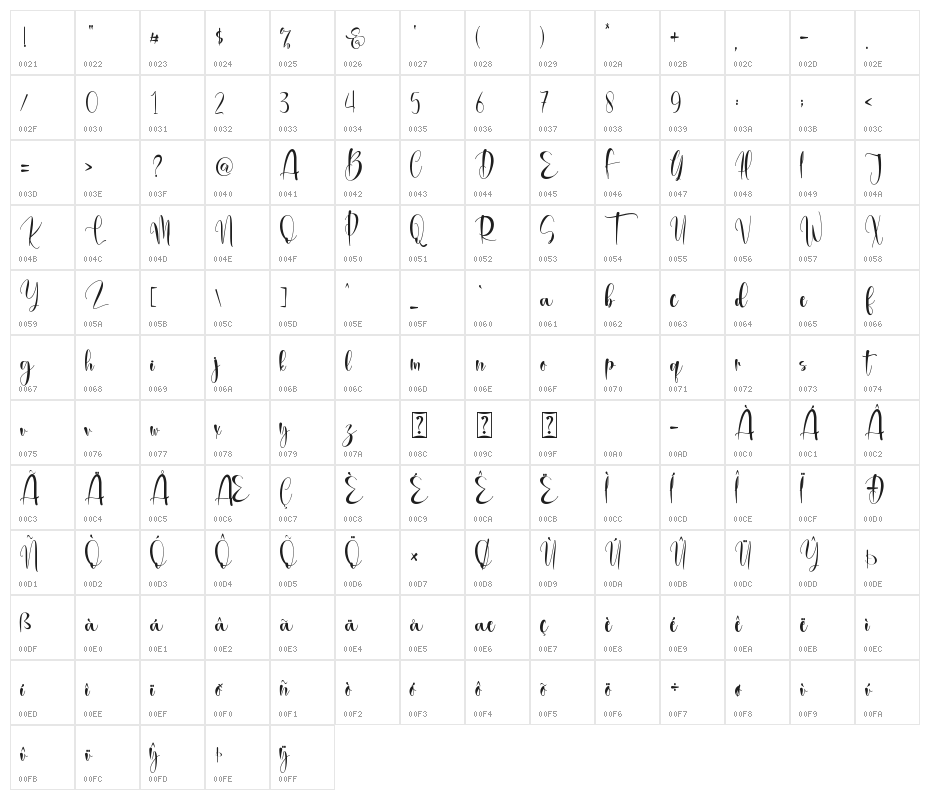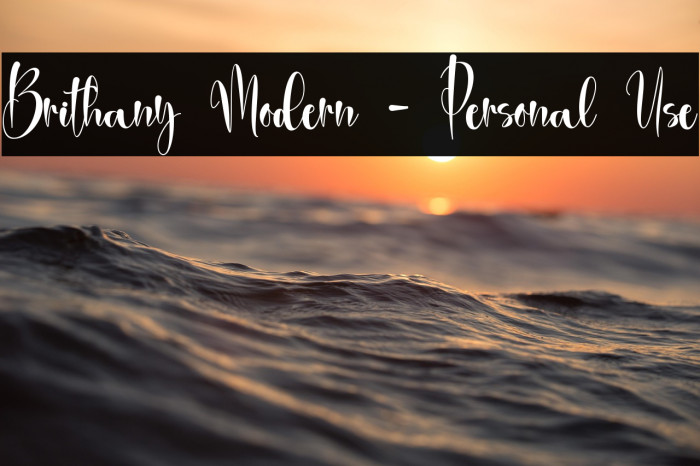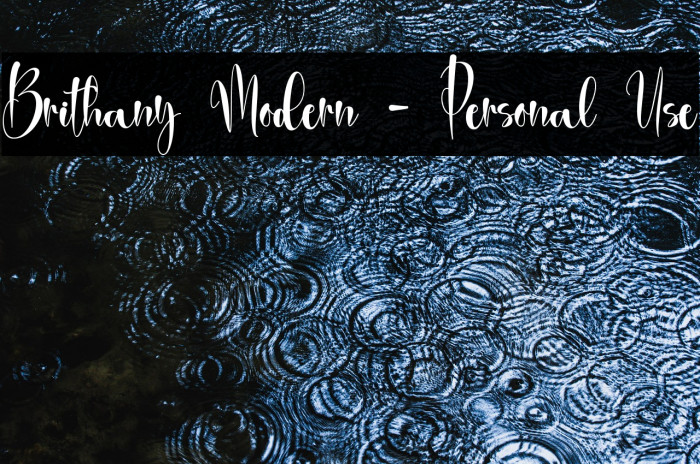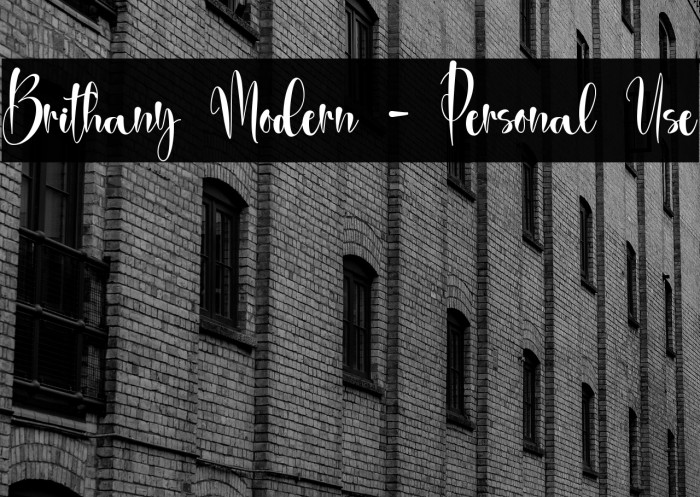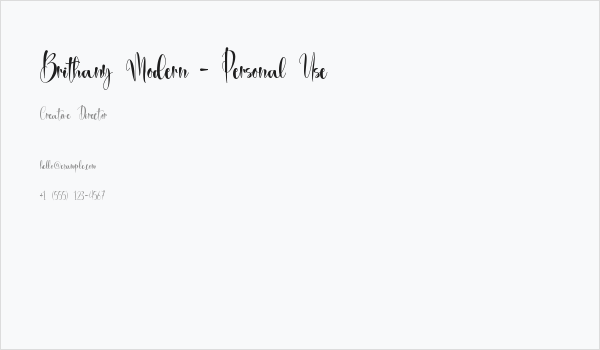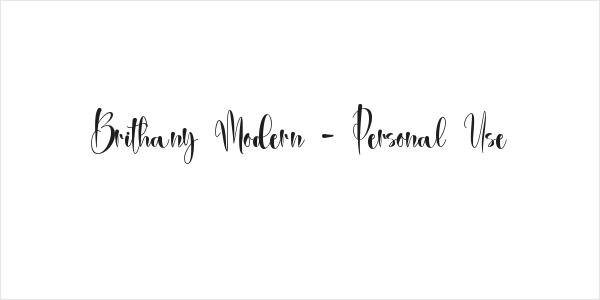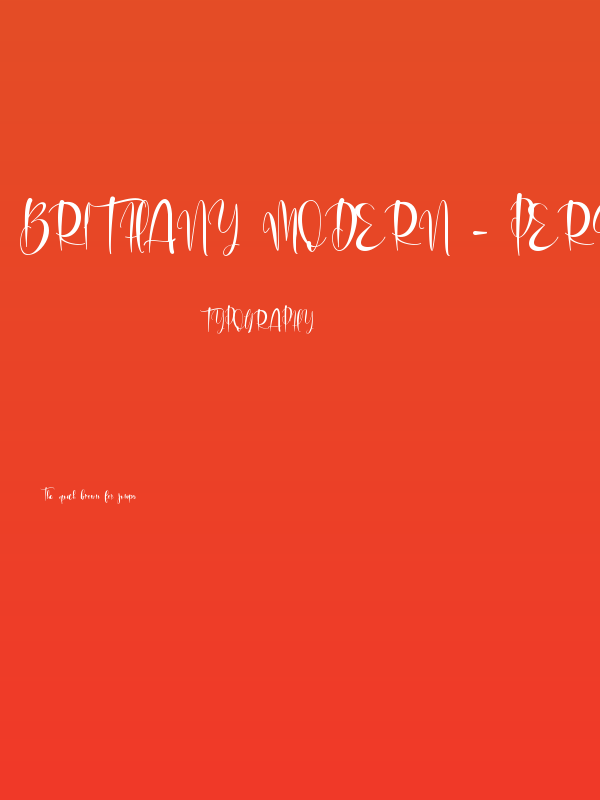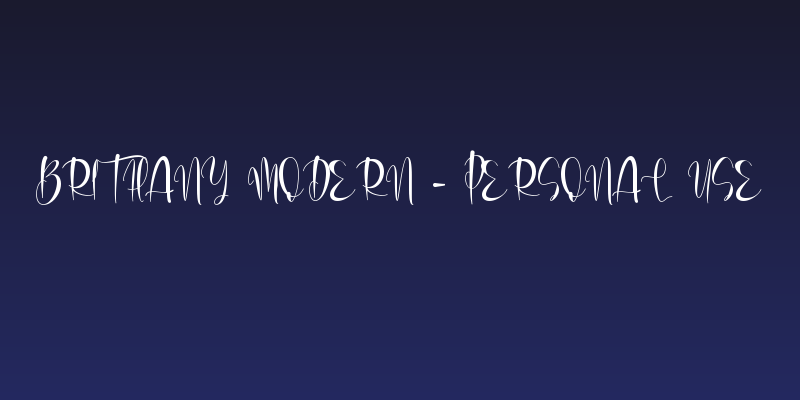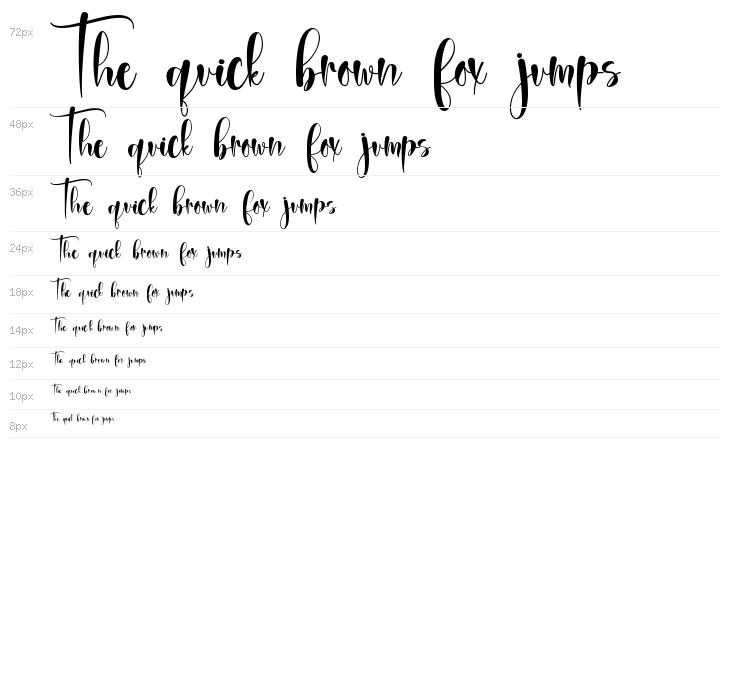
Brithany Modern - Personal Use Font
Brithany Modern - Personal Use Description
This font features a modern and elegant script style with a handwritten appearance. The uppercase letters are tall and flowing, with a distinct flair that adds a touch of sophistication. The lowercase letters maintain a consistent style, offering a smooth and connected look that enhances readability. Numbers are clear and stylish, complementing the overall aesthetic. Special characters are creatively designed, adding versatility to the font's use. The strokes vary in thickness, providing a dynamic and lively feel, while the overall design remains cohesive and visually appealing.
| Proposed Projects | Ideal for wedding invitations, branding, greeting cards, and elegant logo designs. |